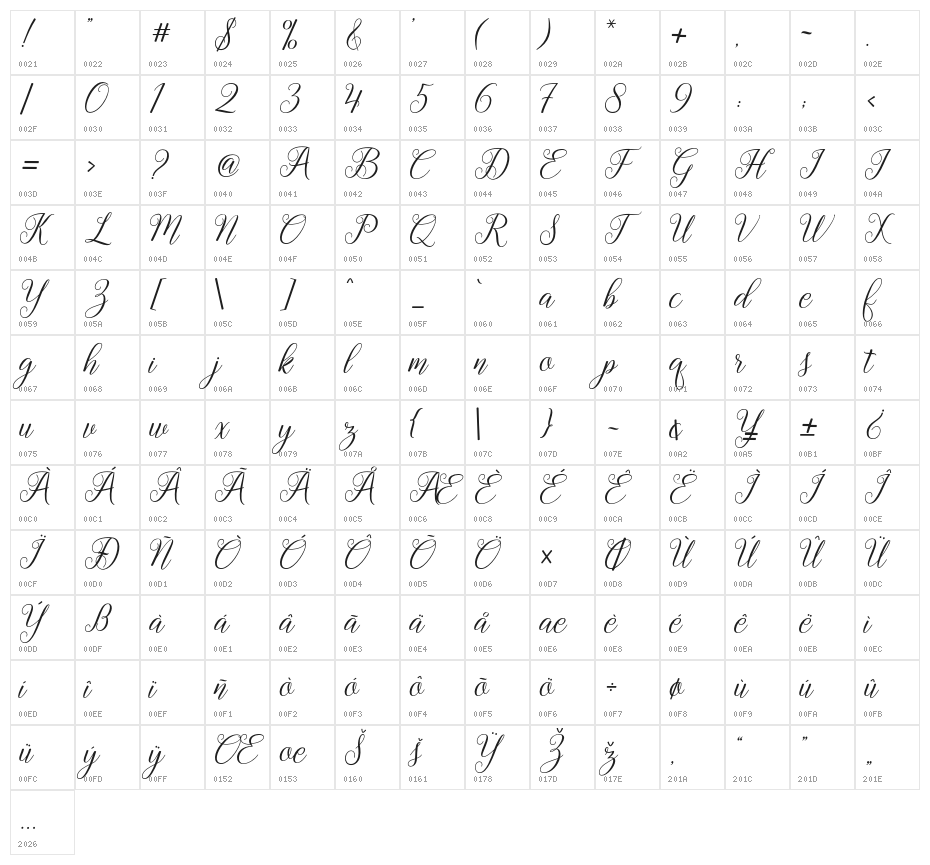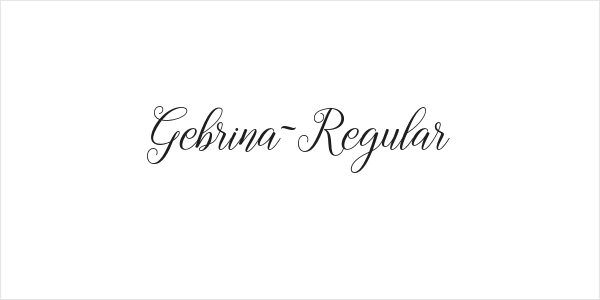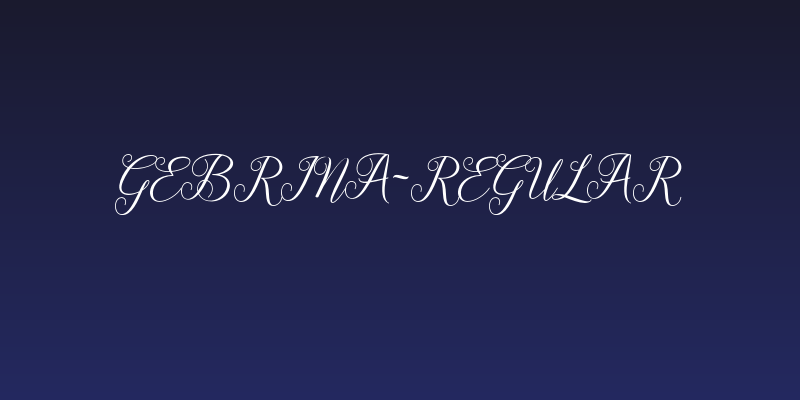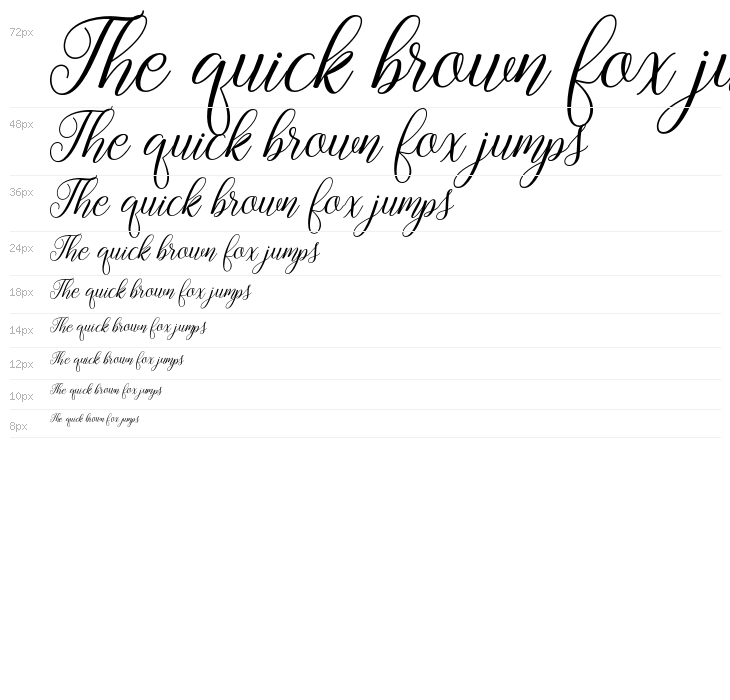
Gebrina-Regular Font
Gebrina-Regular Description
This elegant script font features a flowing, cursive style with intricate loops and swashes. The uppercase letters are particularly ornate, with elaborate flourishes that add a touch of sophistication. The lowercase letters maintain a consistent, smooth flow, making them highly readable despite their decorative nature. The numerals and special characters are designed with the same attention to detail, ensuring a cohesive look across all text elements. This font exudes a sense of grace and refinement, making it ideal for projects that require a touch of elegance.
| Proposed Projects | Ideal for wedding invitations, elegant branding, luxury product packaging, and formal event materials. |